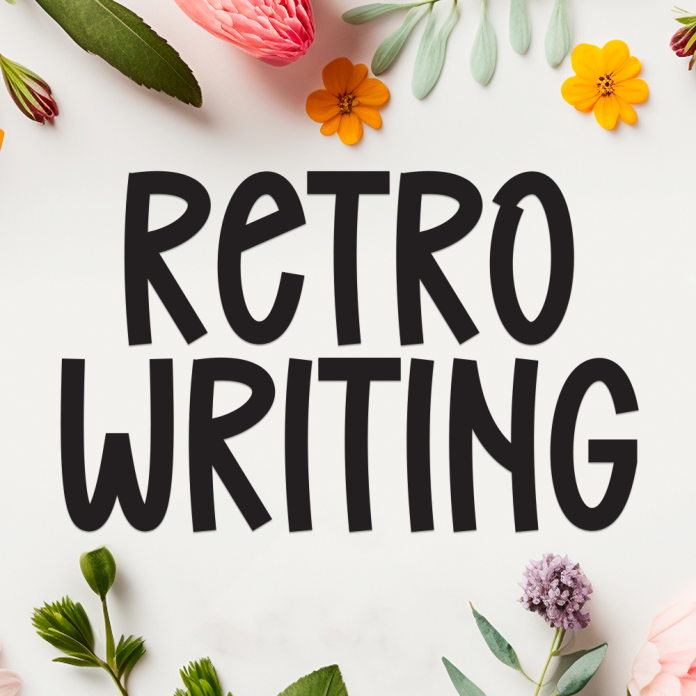
Retro Writing is a bold and nostalgic display font that captures the essence of the groovy retro era. With its funky curves, playful structure, and vibrant personality, it brings a touch of the ‘70s and ‘80s into modern design.
Display style with a strong retro aesthetic
Unique letterforms with a bold and bubbly charm
Ideal for posters, vintage branding, album covers, social media graphics, and signage
Let your design speak in vintage tones with Retro Writing – the font that brings retro vibes back to life.